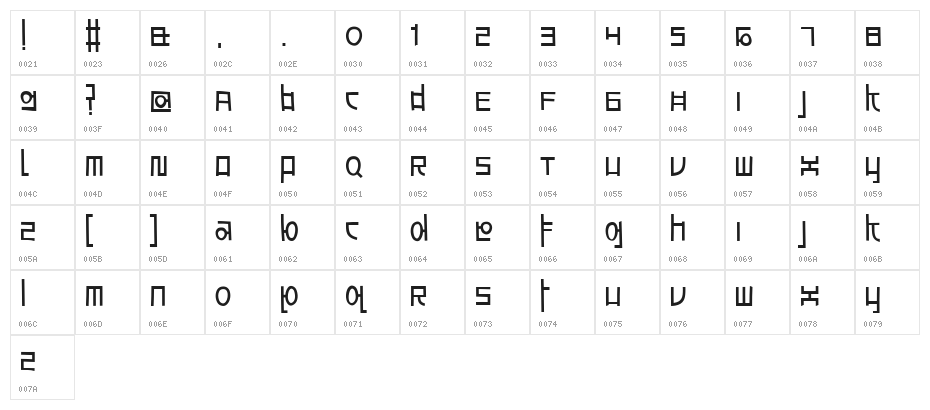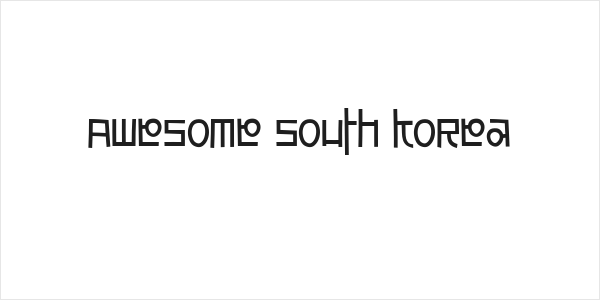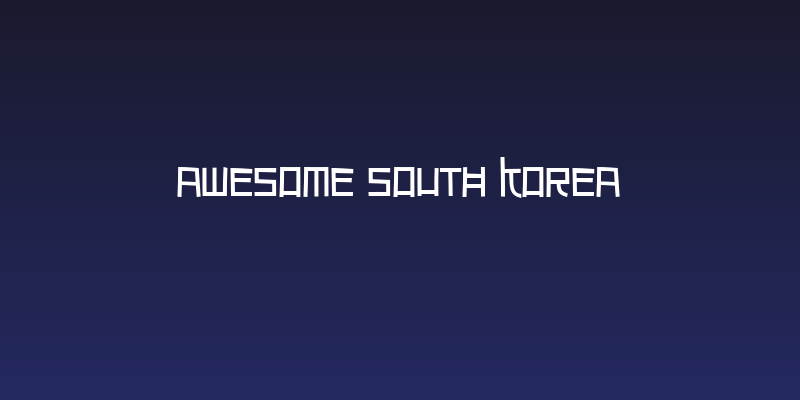
Awesome South Korea Font
Awesome South Korea Description
This font features a unique, geometric design with a modern and futuristic feel. The characters are constructed with straight lines and sharp angles, giving it a structured and architectural appearance. The uppercase and lowercase letters maintain a consistent height, contributing to a uniform look. The numerals and special characters follow the same design principles, ensuring cohesion across all elements. The font's style is bold and striking, making it suitable for projects that require a strong visual impact.
| Proposed Projects | Ideal for branding, posters, and digital media that require a futuristic and bold aesthetic. |